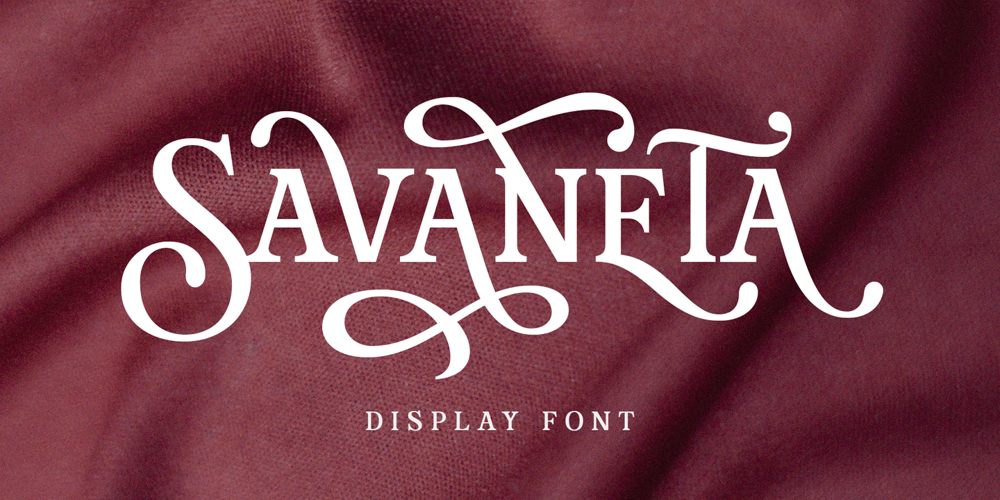
Savaneta Font Family was designed by Ahmad Ramzi Fahruddin and published by Arterfak Project. Savaneta contains 1 styles and family package options. Savaneta is an all caps stylish serif font, designed for display and headline. Inspired by the classic metal movable type (circa the 1440s), with the medium serif thickness. Savaneta is a versatile serif combined with calligraphic sense by adding about 300+ alternates characters so you can create a calligraphic design with ease!This font looks strong and feminine at the same time, that possible to be applied for many purposes. Savaneta is perfect for logos, logotype, letterhead, branding, cards, wedding invitations, label design, posters, apparel, quotes, and short body text. It contains over 500 glyphs and is complete with basic Latin characters.P.S: To access the alternates characters, you need a program with OpenType panel like Adobe Illustrator, Adobe Photoshop, or you can simply copy-paste the alternates characters by accessing Font Book (Mac) and Characters Map (Win)Features included: Uppercase Small case Numbers Symbol Standard Latin accents. Stylistic alternates Stylistic set 01-10 Thank you for visiting, and have a nice day!